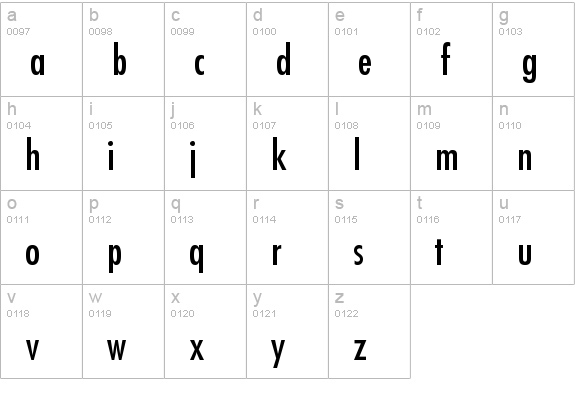
Futura Condensed Medium is a balanced, medium-weight, condensed-width variant in the Futura typeface family \xE2\x80\x94 well suited to sub-headlines, navigation, and balanced editorial work.
Futura Condensed Medium font is a versatile and modern typeface that exudes elegance and sophistication. Its clean lines and balanced proportions make it ideal for a wide range of design projects, from branding to editorial design. The medium weight of this font provides a perfect balance between boldness and readability, making it suitable for both headlines and body text. What sets Futura Condensed Medium font apart is its ability to convey a sense of professionalism and modernity while maintaining a timeless appeal. Whether you are creating a sleek corporate identity or designing a stylish poster, this font will add a touch of sophistication to your project. And the best part is, Futura Condensed Medium font is available for free download at FontsMarket.com. So you can easily access this exceptional typeface and elevate your designs without any cost. Don't miss out on this opportunity to enhance your creative projects with the timeless beauty of Futura Condensed Medium font.